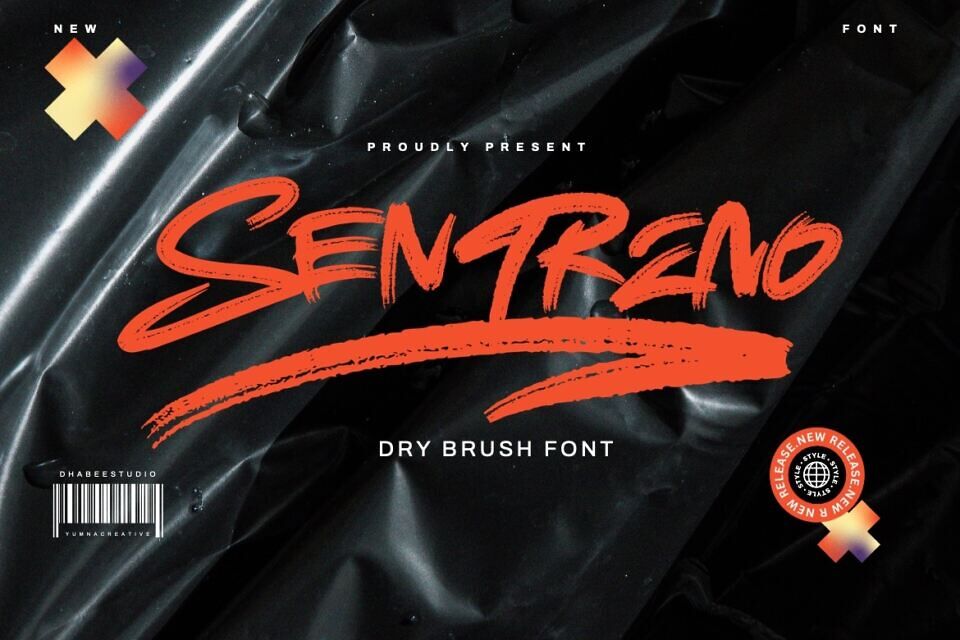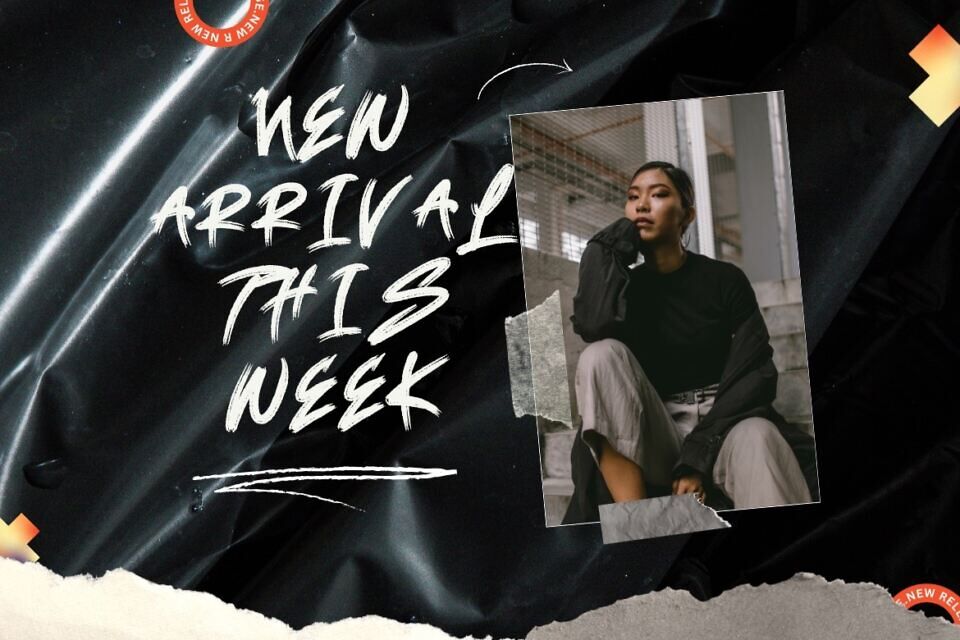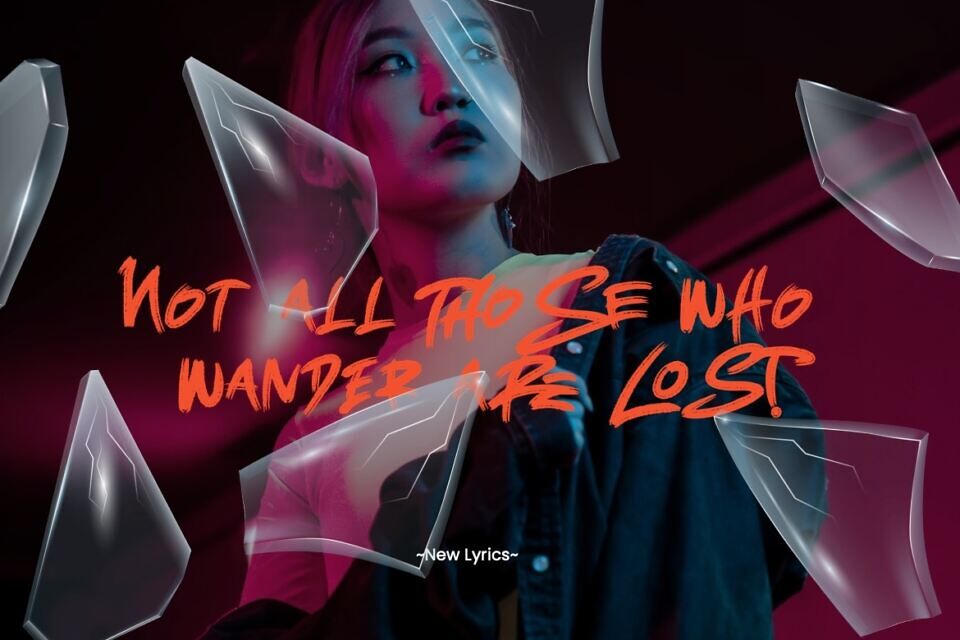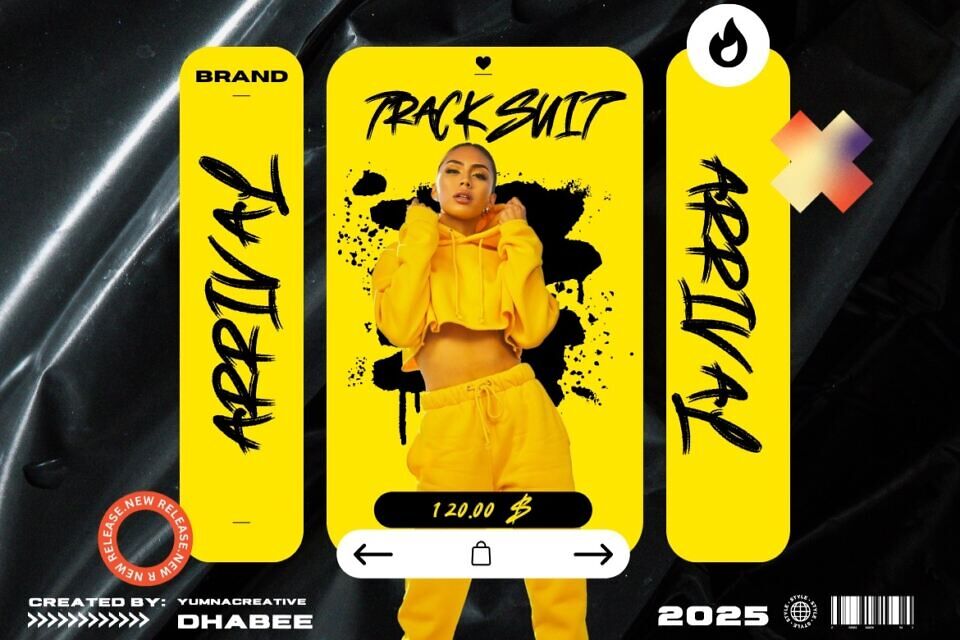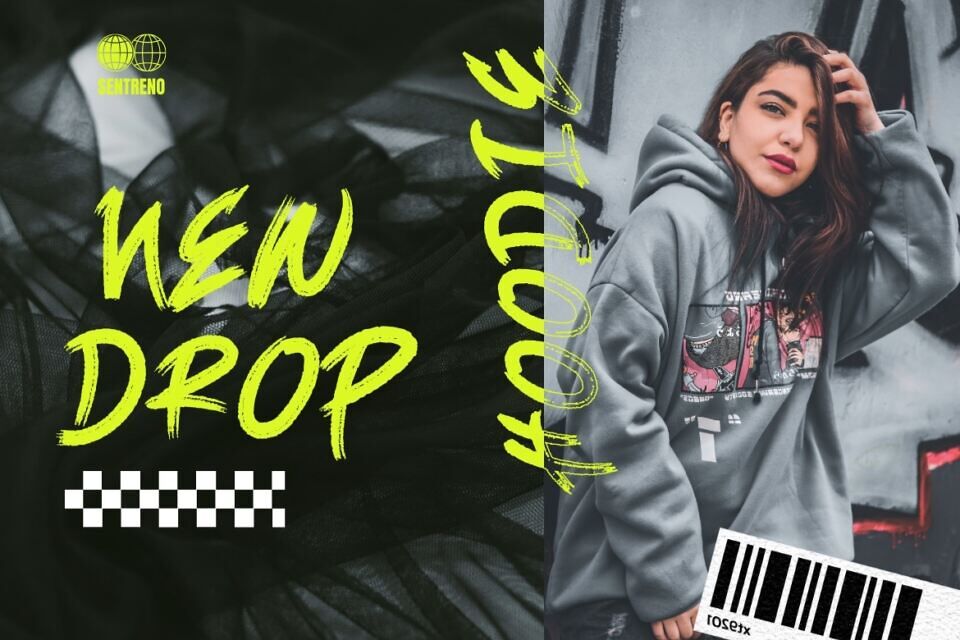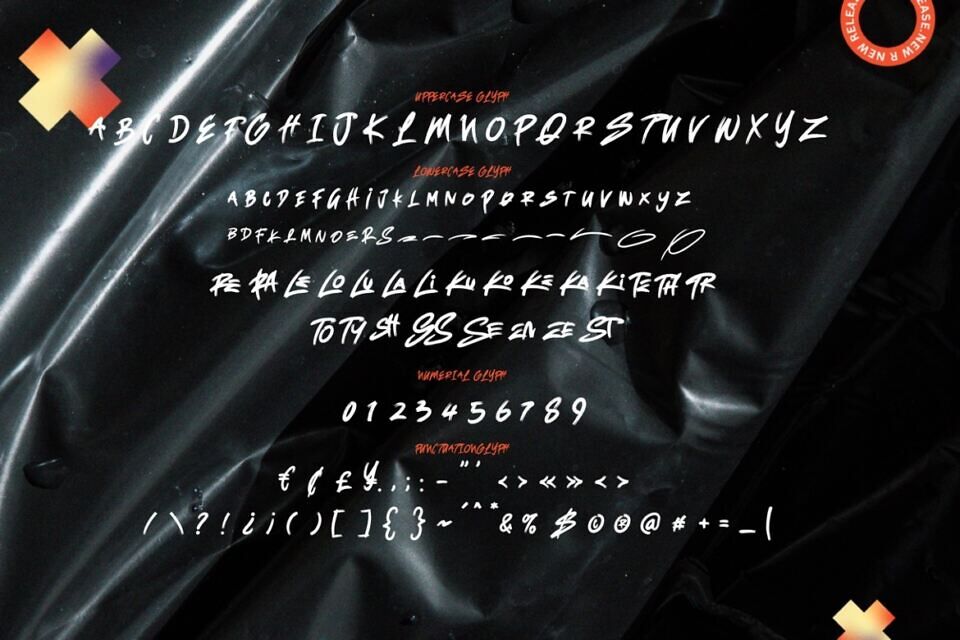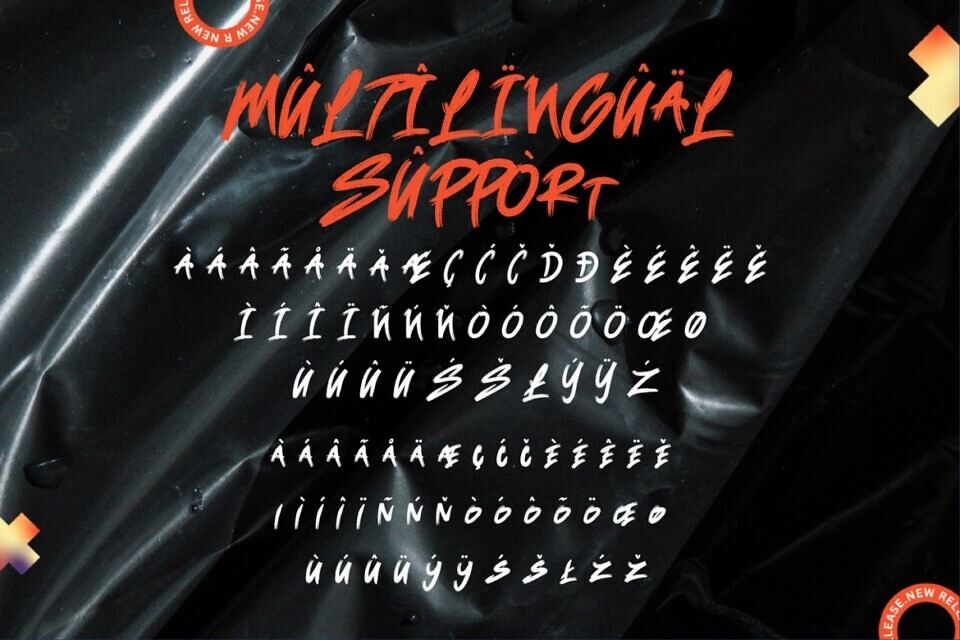
Sentreno Font
Sentreno is a Dry Brush Font which has a hand lettering brush style. So it looks natural like a handmade. This texture is very detailed.
This font is suitable for logos, product branding, printable templates or for text overlay to any background image, also suitable for use in title design. Such as apparel, invitations, books tittle, stationery design, quotes, branding, greeting card, t-shirt, packaging design, poster and more!